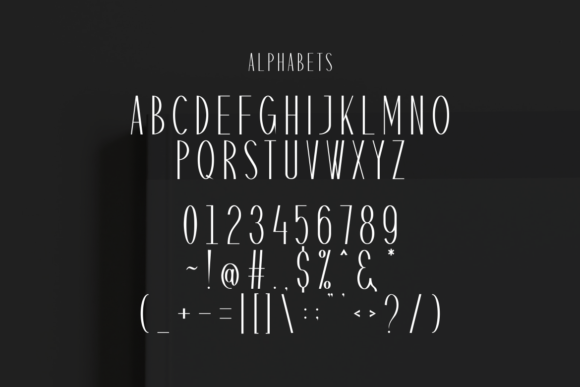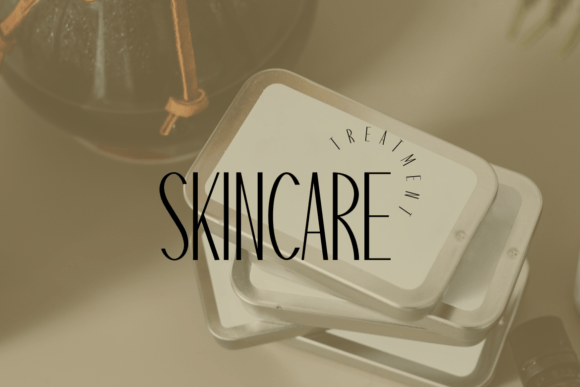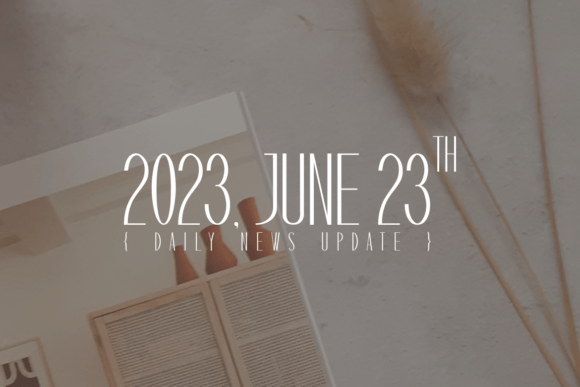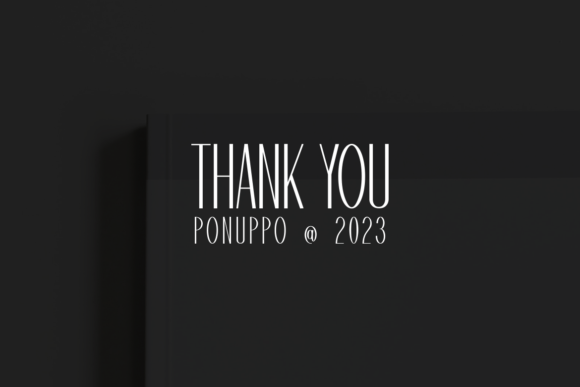
Introduction to Sanzyume Font
Imagine you’re browsing through a trendy beauty store, surrounded by an array of gorgeous cosmetics and skincare products. Each label and packaging catches your eye, not just because of the products themselves, but also because of the beautiful typography used. That’s where the Sanzyume Font comes in – a stunning Japanese-Korean style font designed specifically for beauty and fashion branding.
As a designer, you’re always on the lookout for that perfect design resource to elevate your creative project. The Sanzyume Font is a high-quality addition to any design arsenal, offering a unique and feminine touch to your cosmetics packaging designs. With its delicate and elegant lines, this font is sure to make your brand stand out in a crowded market.
Key Features of Sanzyume Font
- High-quality design resource with a unique, creative style suitable for various projects, including branding and marketing materials.
- Designed with a modern aesthetic, the Sanzyume Font is perfect for creative projects that require a touch of sophistication and elegance.
- Features a clean and legible design, with clear lines and precise letterforms that ensure readability in various sizes and resolutions.
- Supports a range of languages, including Latin, Cyrillic, and Greek scripts, making it a versatile choice for international projects.
Honest Review: Sanzyume Font
I recently had the chance to explore the Sanzyume Font, and I must say, it’s a fantastic addition to any designer’s toolkit. As a design resource, it’s perfect for creating visually appealing and high-quality designs.
- ✨ High-quality design with a unique aesthetic
- ✨ Versatile font suitable for various design projects
- ⚠️ Limited character set, which may not be suitable for extended texts
- ⚠️ Not ideal for body text due to its decorative nature
Overall, the Sanzyume Font is a great choice for designers looking to add a touch of elegance and sophistication to their designs. While it may have some limitations, its unique aesthetic and free download option make it a valuable addition to any design resource library.